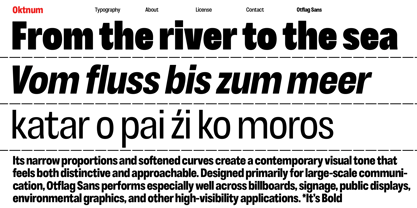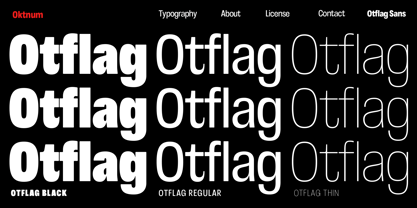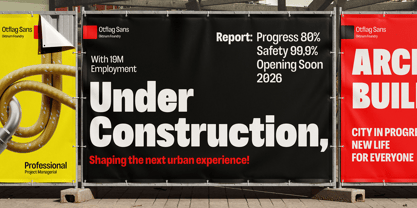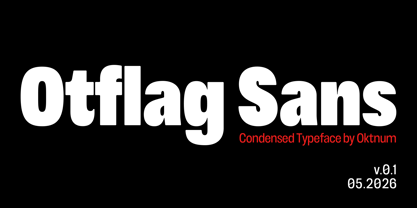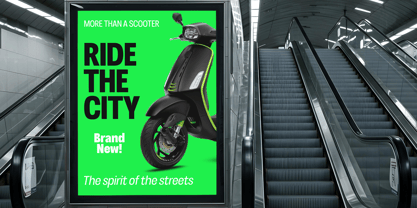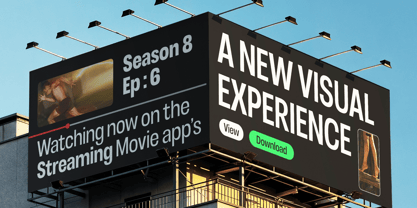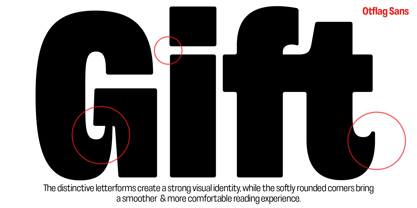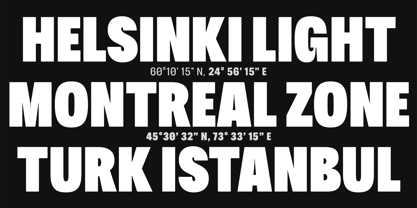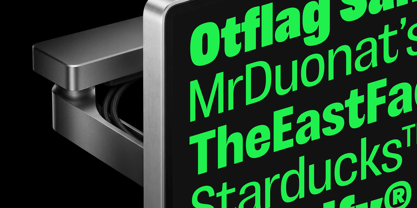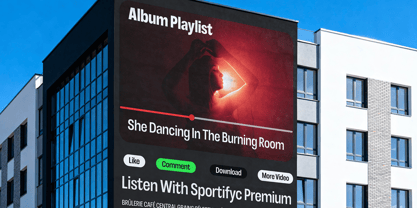
Otflag Sans
by Oktnum Type Foundry
The Otflag Sans Font Family was designed by Sarwo Edi, T. Marjan Bahraini and published by Oktnum Type Foundry. Otflag Sans contains 19 styles and family package options. More about this family
Otflag Sans is a contemporary condensed sans serif typeface characterized by its compact proportions, rounded forms, and a highly recognizable visual rhythm. With low contrast and distinctive signature glyphs, this typeface offers a strong presence while maintaining a smooth and approachable appearance.
Originally developed for large-format communication, Otflag Sans excels in high-visibility environments such as billboards, signage systems, public installations, and motion graphics, where clarity and impact are paramount. Its condensed structure makes it highly adaptable for space-conscious layouts, including social media stories, editorial compositions, music visuals, packaging, and digital interfaces.
Balancing efficiency, personality, and readability, Otflag Sans provides a modern typographic voice that is perfect for contemporary branding and visual culture.
Designers: Sarwo Edi, T. Marjan Bahraini
Foundry: Oktnum Type Foundry